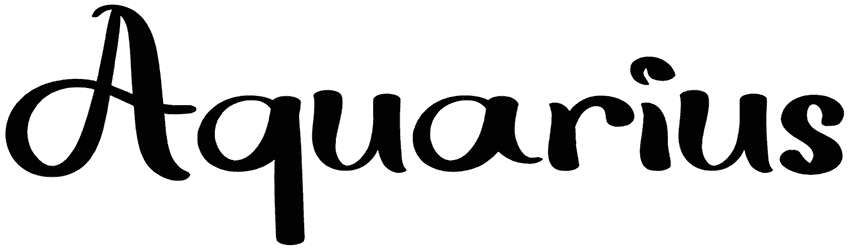
Aquarius Font
The Aquarius, as a cursive font, could give your digital projects a personal touch and make you stand out from the crowd. Using this script font can give your presentation a friendly feel.
Aquarius is a beautiful and bold script font, that exudes elegance and class. This font was particularly crafted for those who need a beautiful and refreshing look to their designs.